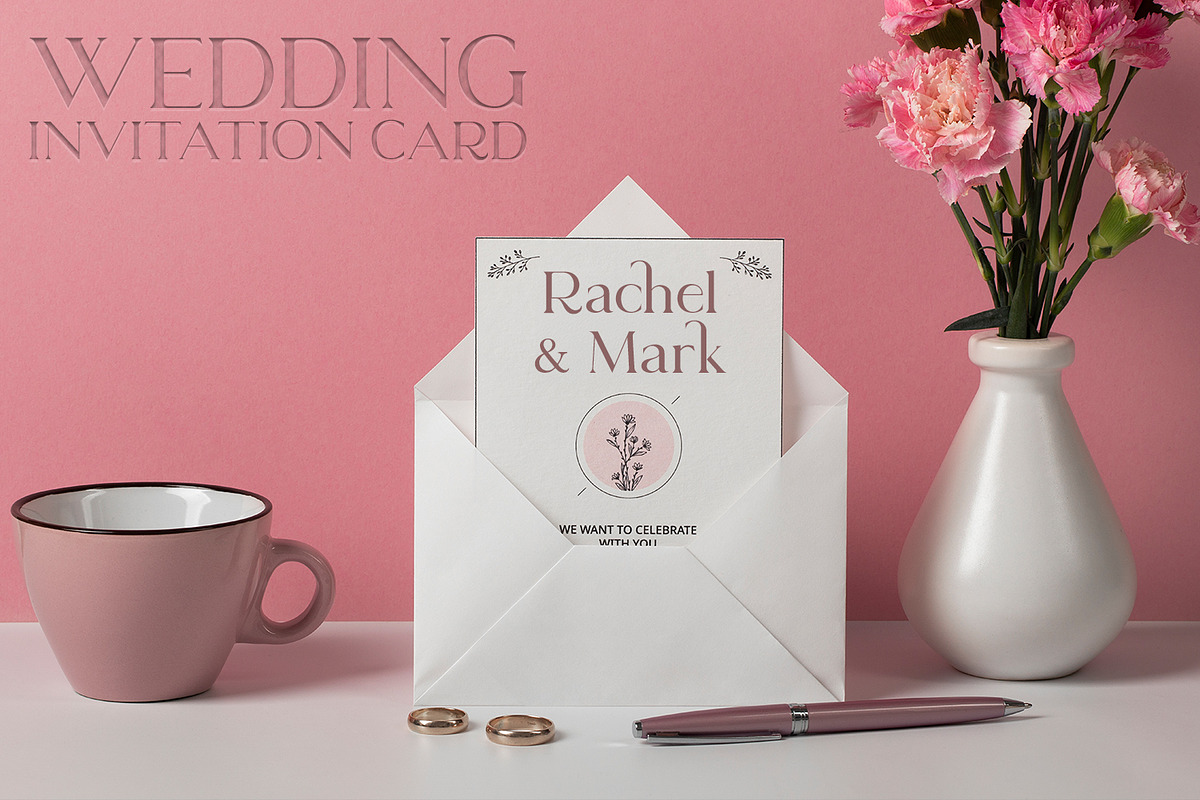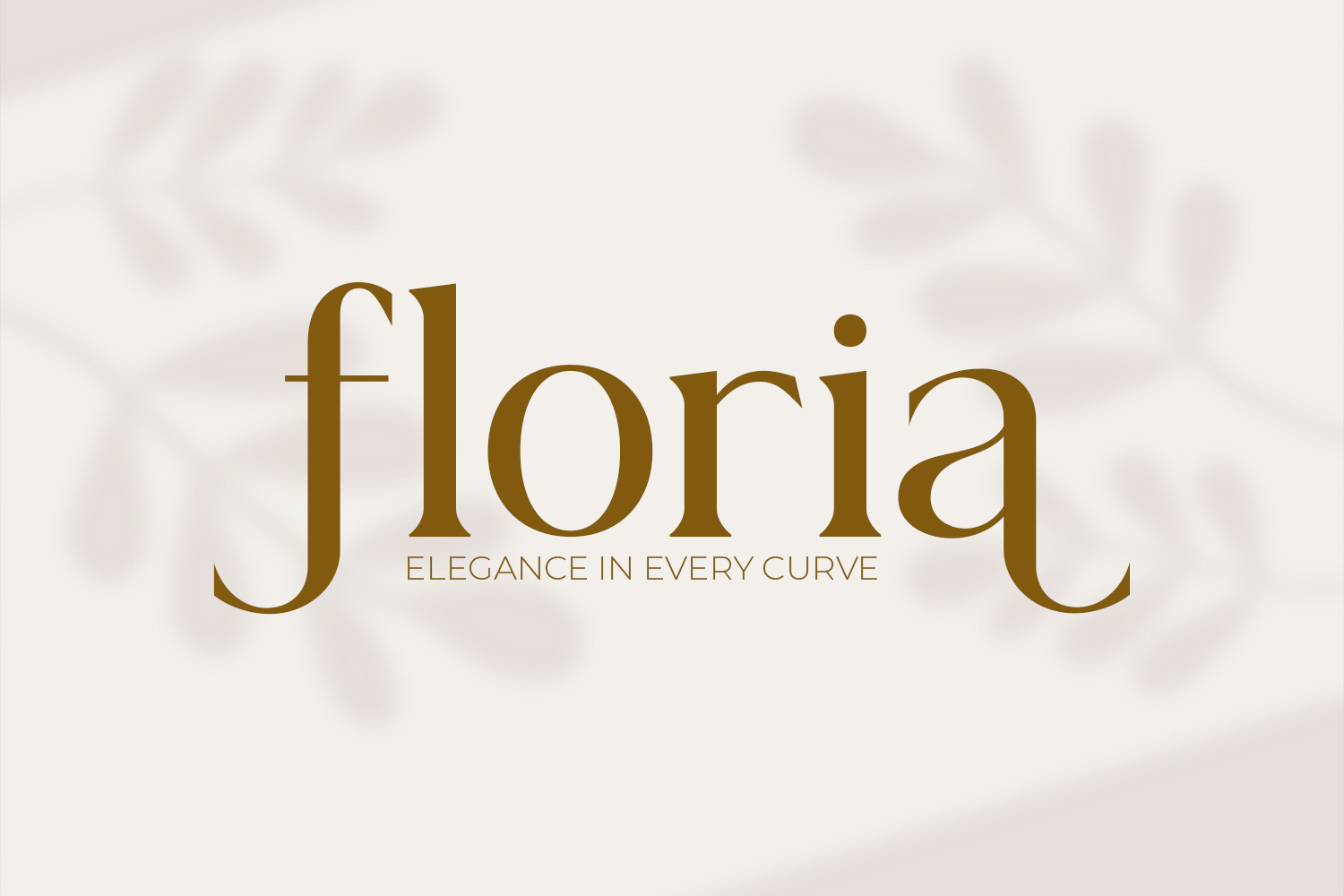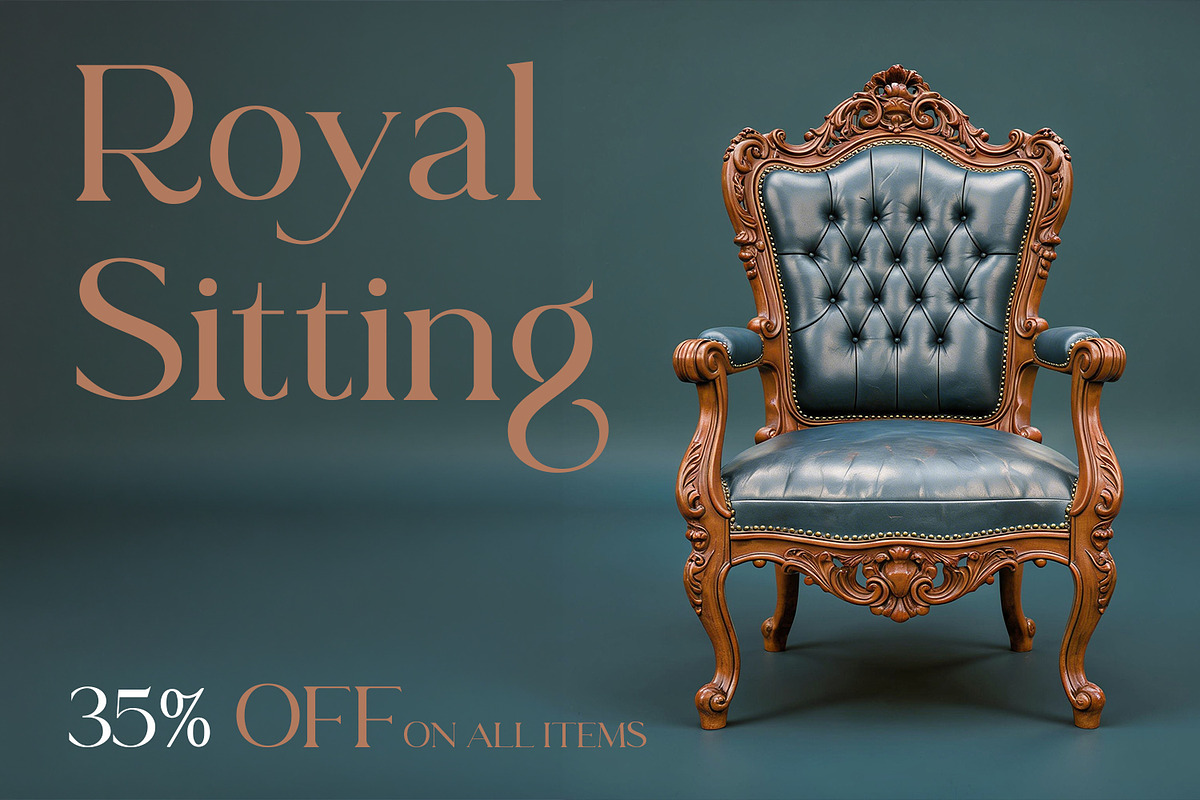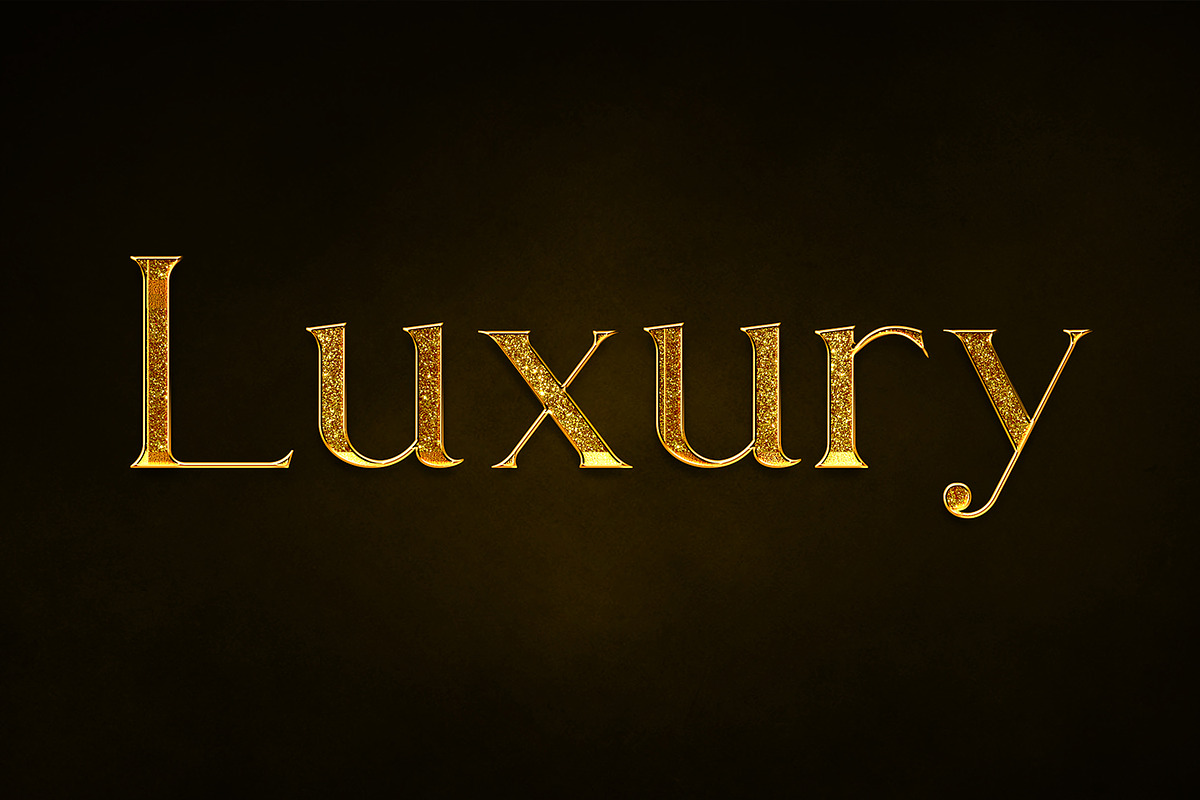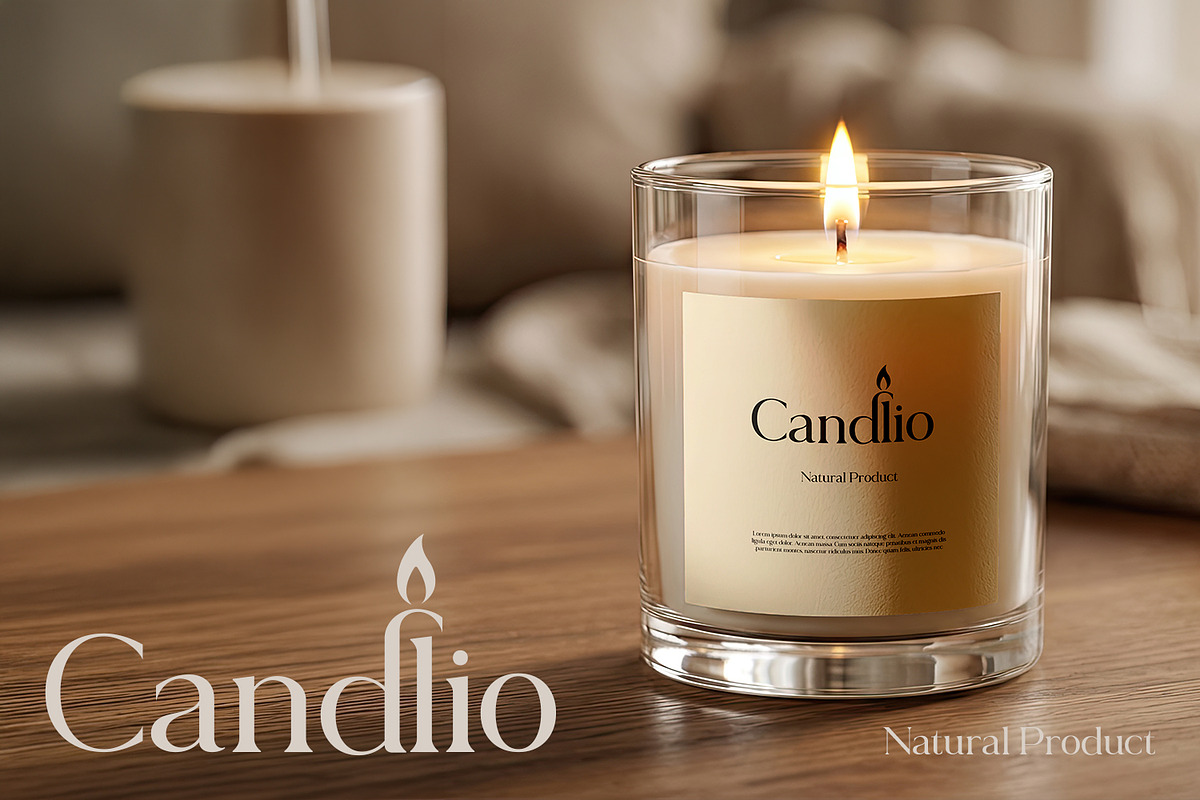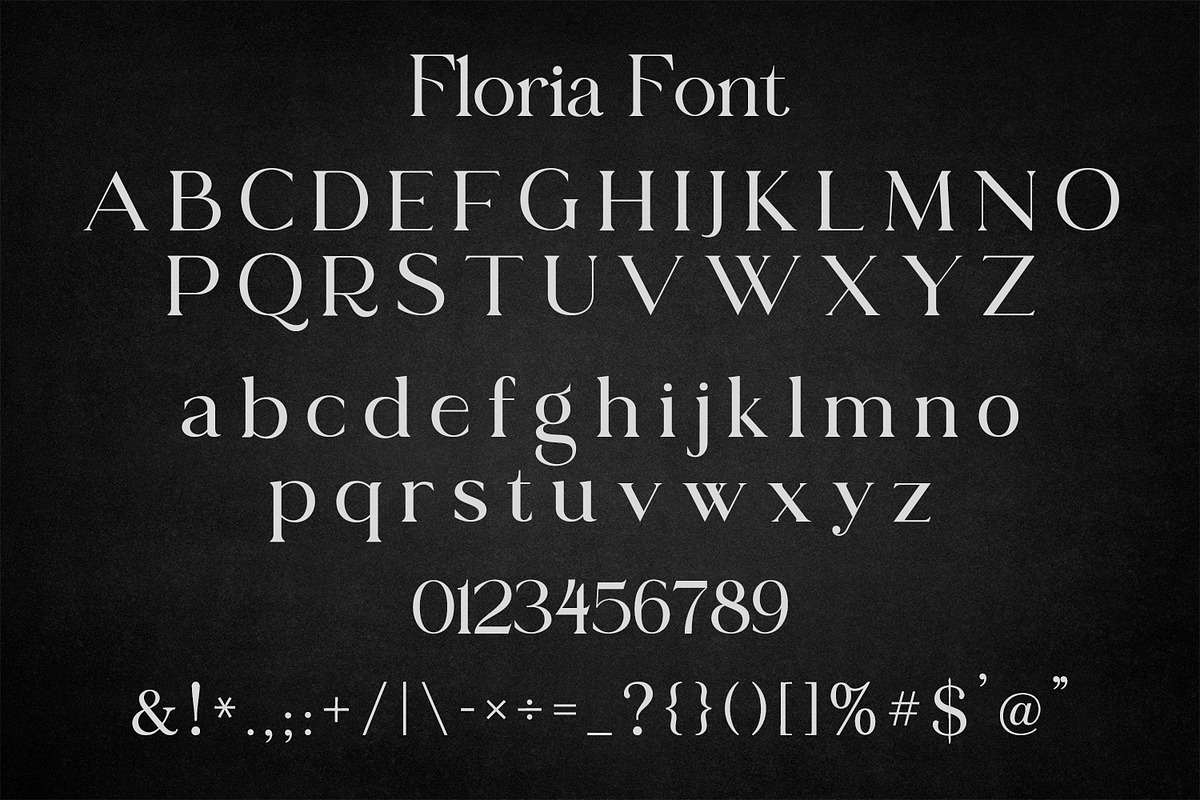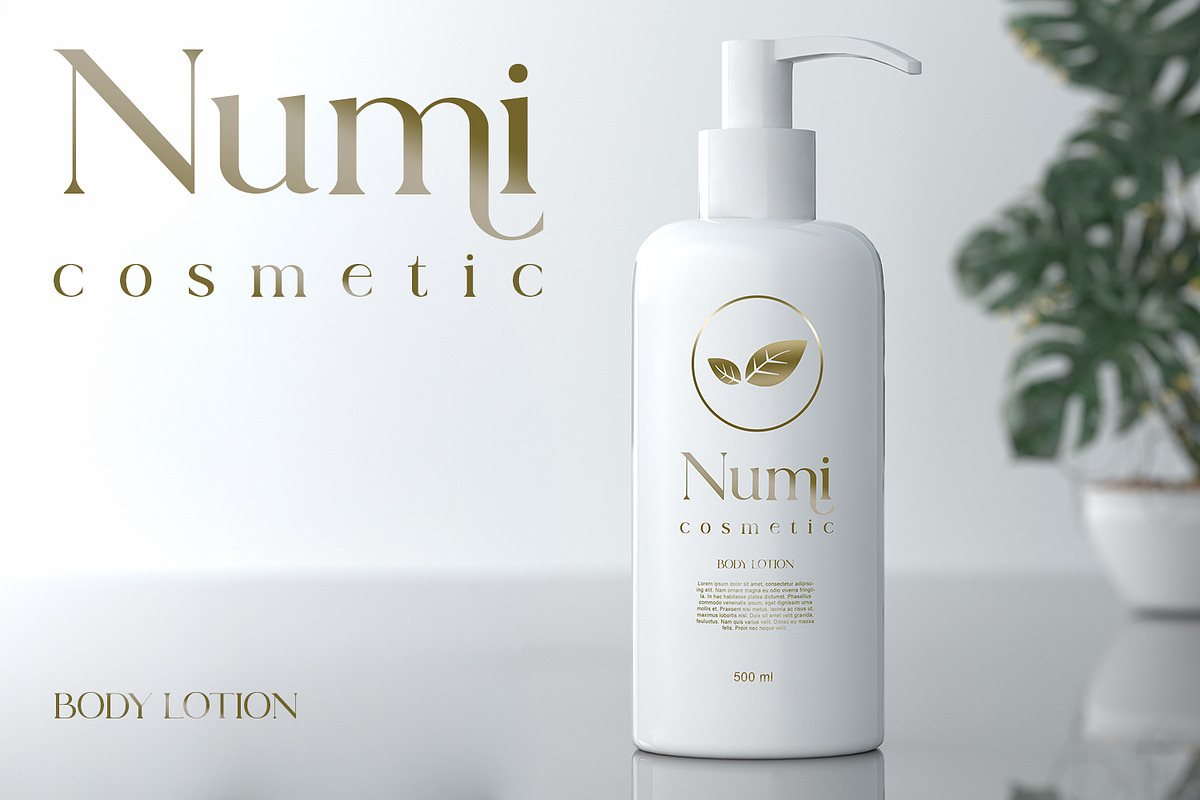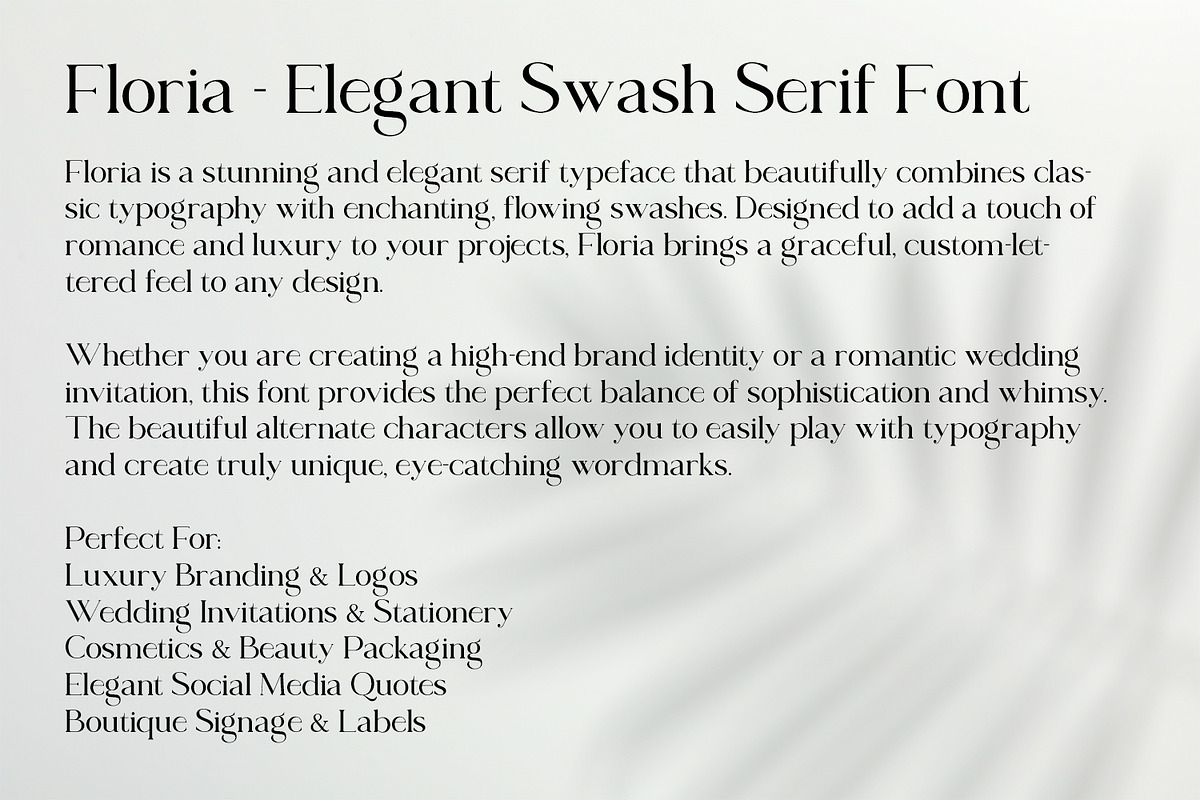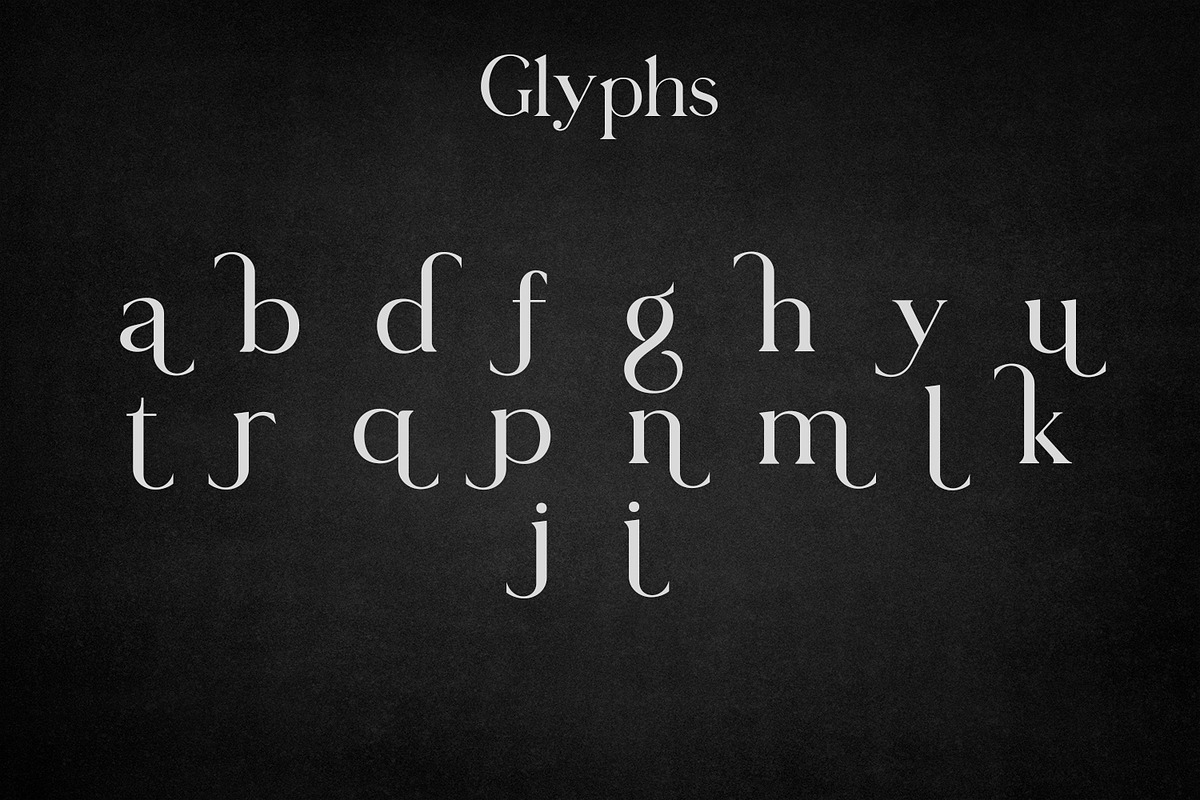
Floria - Elegant Swash Serif Font
Floria is a high-end serif typeface that masterfully blends classical elegance with artistic flair. Featuring stunning, handcrafted swashes and decorative alternates, this font is designed to bring a touch of luxury and romance to your creative projects.
Its sophisticated curves make it the ultimate choice for premium branding, high-fashion editorial layouts, and exquisite wedding stationery. Whether you are designing a logo for a cosmetic brand or a layout for a luxury magazine, Floria provides the versatility and beauty needed to make your typography stand out.
Exquisite Swashes & Alternate Characters.
Elegant, High-Contrast Serif Design.
Perfect for Branding, Logos, and Invitations.